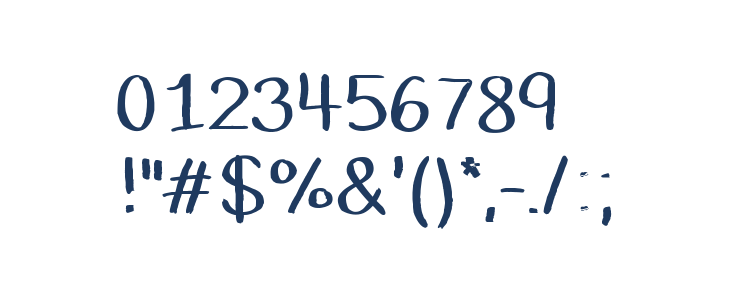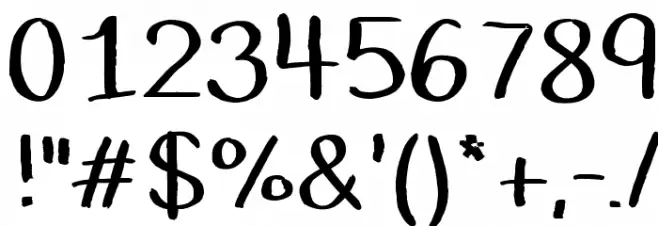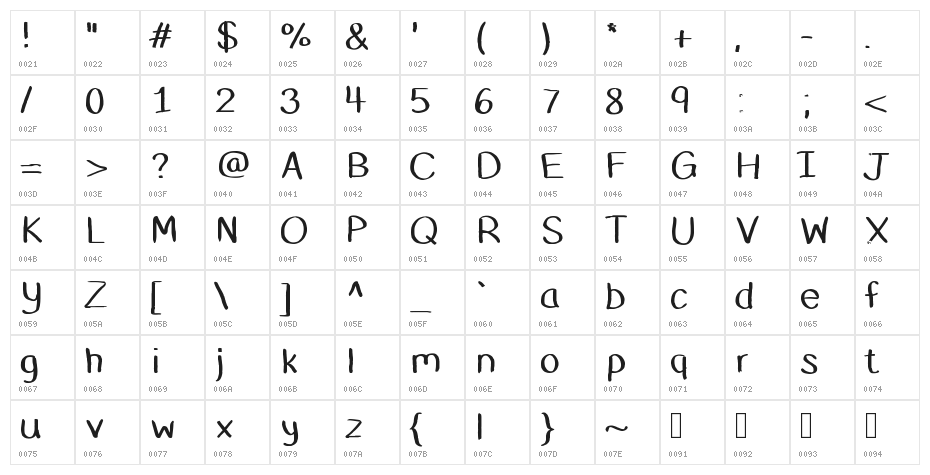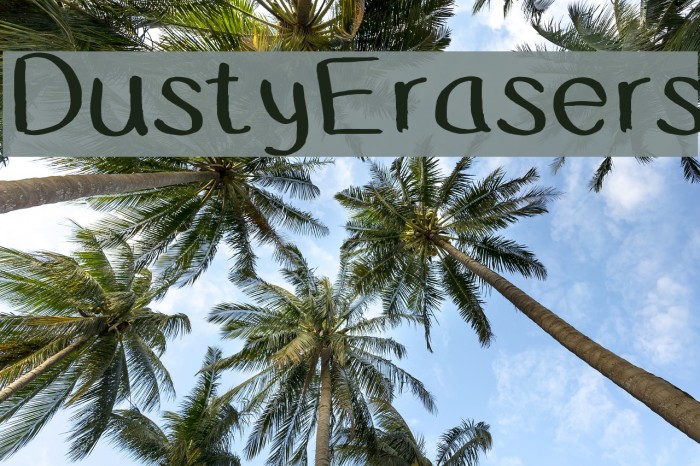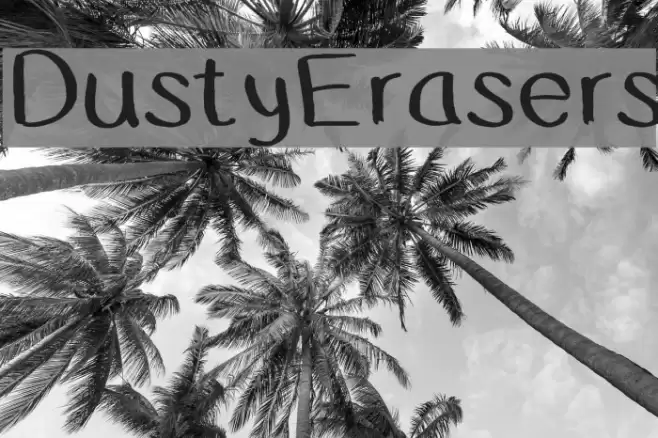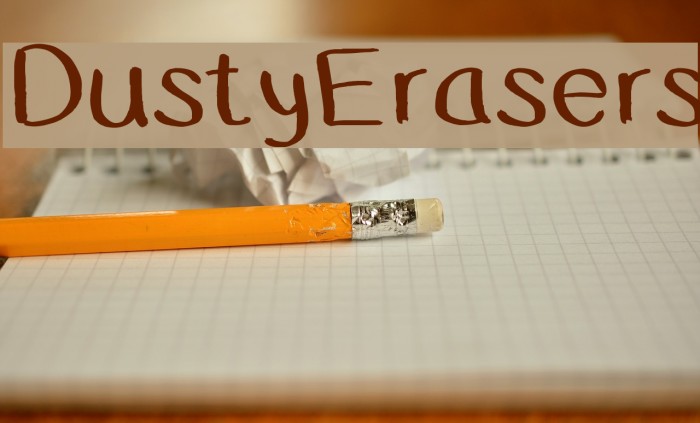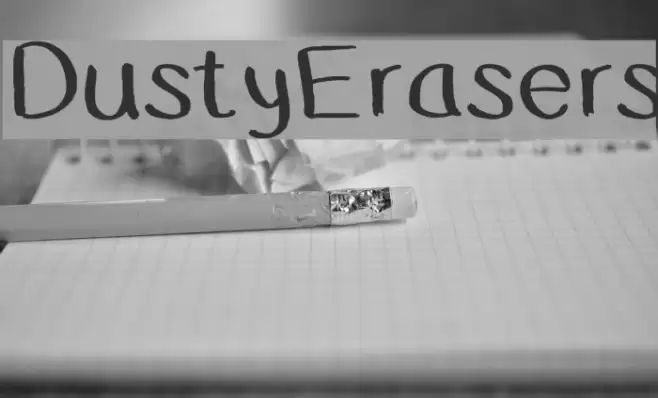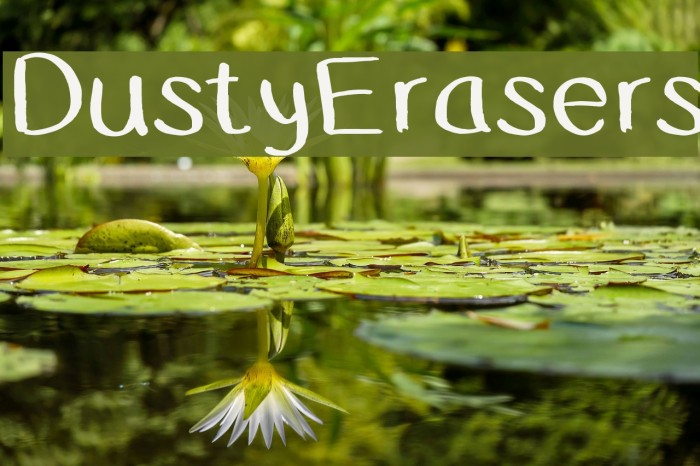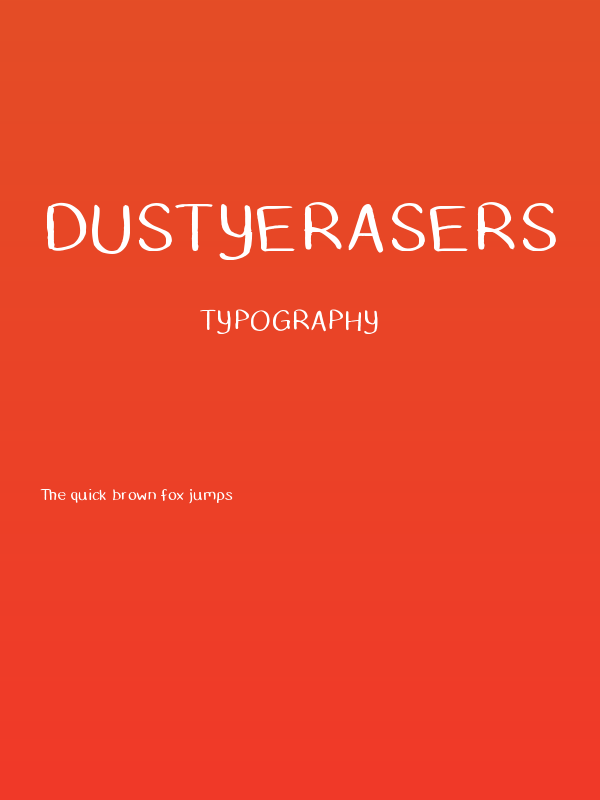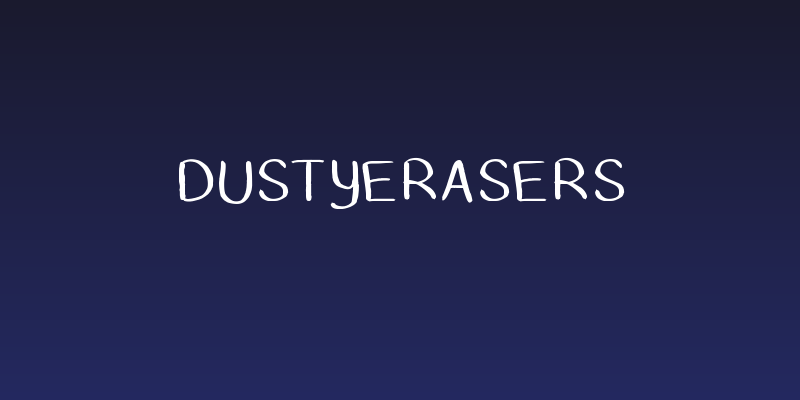
DustyErasers Font
DustyErasers Description
This font features a playful and informal handwritten style, characterized by its uneven strokes and slightly irregular letterforms. The uppercase and lowercase letters maintain a consistent flow, giving it a casual and approachable appearance. The numbers and special characters follow the same style, ensuring uniformity across all glyphs. The font's organic feel is enhanced by its slightly rough edges, mimicking the texture of hand-drawn ink or chalk. This adds a personal touch, making it suitable for projects that require a human element or a touch of whimsy.
| Proposed Projects | Ideal for greeting cards, children's books, casual branding, and social media graphics. |